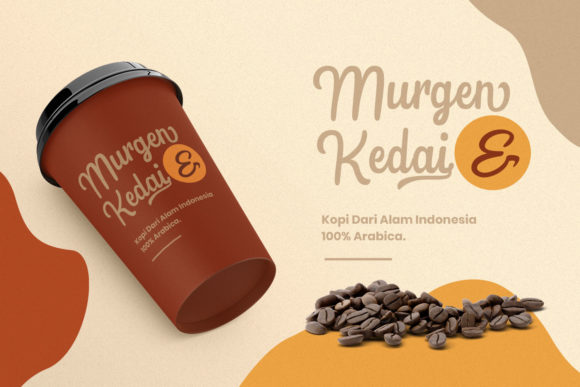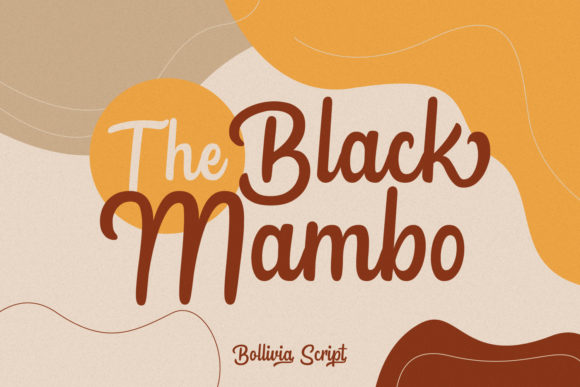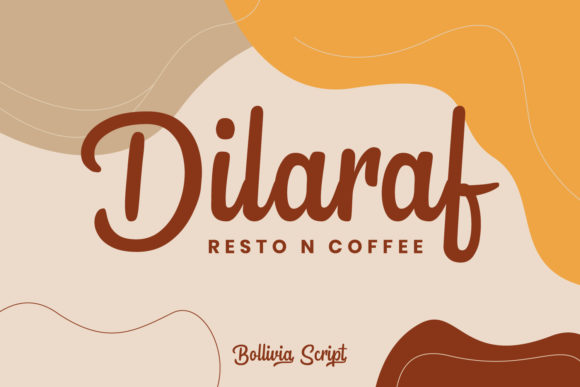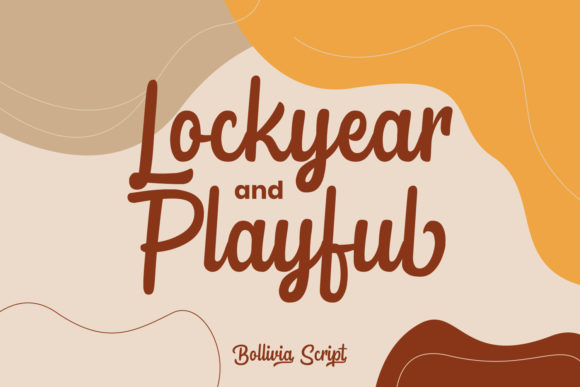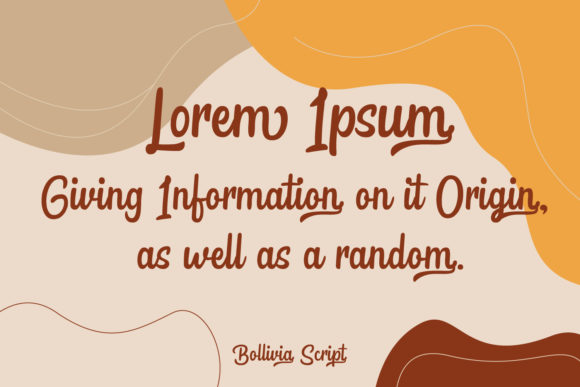
Bollivia Script Font
About Bollivia Script Font
Bollivia Script is a gorgeous handwritten font. This stunning font is a stylish homage to classic calligraphy. It features a varying baseline, smooth lines, gorgeous glyphs and stunning alternates.